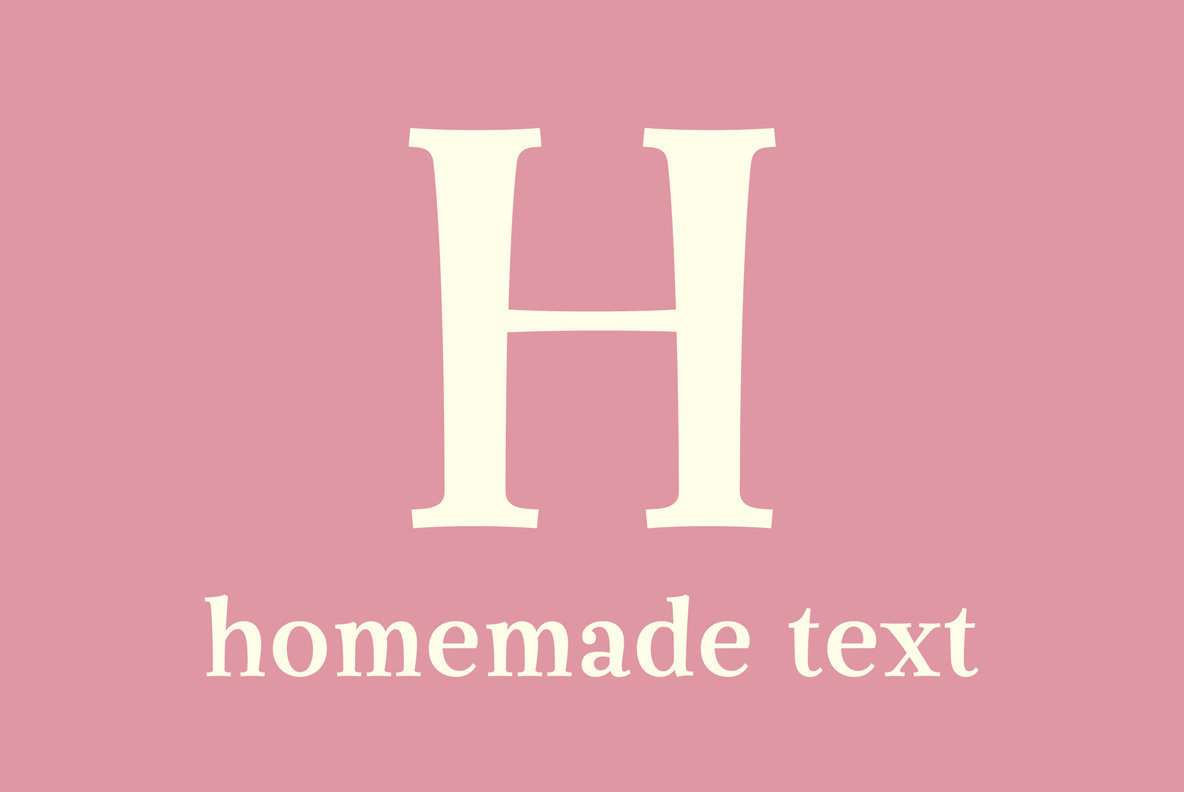
Homemade Text Font
Homemade Text Font is perfect for artisanal product branding, handcrafted business identities, cozy café communications, family recipe documentation, personal blog typography, boutique shop signage, craft workshop materials, and heartfelt advertising campaigns. This charming typeface works beautifully in both digital applications and print media where authentic handmade quality and personal touch are essential design elements.
What makes Homemade Text Font so exciting is its genuine capture of kitchen-table craftsmanship through natural letterforms that seem written with the same loving care and personal attention that goes into homemade goods and family traditions. The font features comfortable characters with handcrafted proportions, natural variations, and homestyle details that create an immediate sense of warmth, authenticity, and the irreplaceable value of things made by hand with love. Its personal personality and domestic heritage make it ideal for brands seeking to establish genuine connections with their customers while communicating homemade quality, family values, and the comforting authenticity of traditional craftsmanship.
The Homemade Text Font family includes multiple stylistic variations with different handmade intensities, along with natural alternates and domestic ornamental elements. Each style maintains the typeface's authentic character while offering comprehensive character sets including homestyle numerals, family-focused punctuation marks, and special symbols designed to enhance personal communications and homemade branding efforts across various heartfelt contexts.
This extraordinary typeface represents the perfect marriage of domestic authenticity and professional functionality for family-oriented and artisanal industries. Whether you're developing family business identities, creating homemade product packaging, or designing community event materials, Homemade Text Font Free Download provides the genuine warmth and versatility needed to create meaningful family connections. The font's homemade appeal makes it particularly effective for family restaurants, craft businesses, local bakeries, and organizations celebrating the beauty of homemade quality and traditional family values.
The carefully preserved handcrafted characteristics and optimized personal performance in Homemade Text Font ensure both authentic charm and clear communication across all family applications. Its comforting presence makes it perfect for homestyle branding, family marketing materials, and authentic communications where its full homemade character can create emotional bonds with audiences seeking the comfort, quality, and genuine care that only comes from things made at home with love.